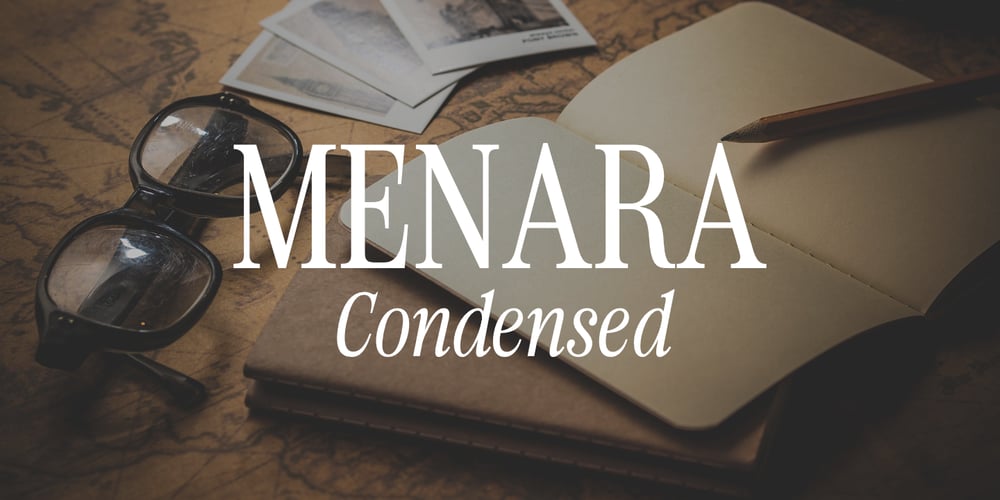
Menara Font Family was designed by Muhammad Hastian and published by Hazztype. Menara contains 2 styles and family package options. Menara is a captivating vintage serif font that effortlessly blends elegance and charm with a touch of nostalgia. This condensed typeface showcases the beauty of traditional letterforms, infused with a contemporary twist. Its italic variant adds a dash of dynamic flair, creating a truly versatile font that is perfect for both classic and modern design projects.With its refined and sleek appearance, Menara exudes a sense of sophistication and refinement. The condensed letterforms allow for maximum impact, making it ideal for headlines, titles, and branding materials. Whether you’re designing a vintage-inspired logo, packaging, or editorial layouts, Menara delivers a timeless aesthetic that commands attention.The italic style of Menara introduces a subtle sense of motion and playfulness to the font. It adds an expressive quality that can bring emphasis and character to your designs. Perfect for adding an extra touch of elegance to wedding invitations, book covers, or product labels, the italic variant of Menara lends a unique personality to your typography.